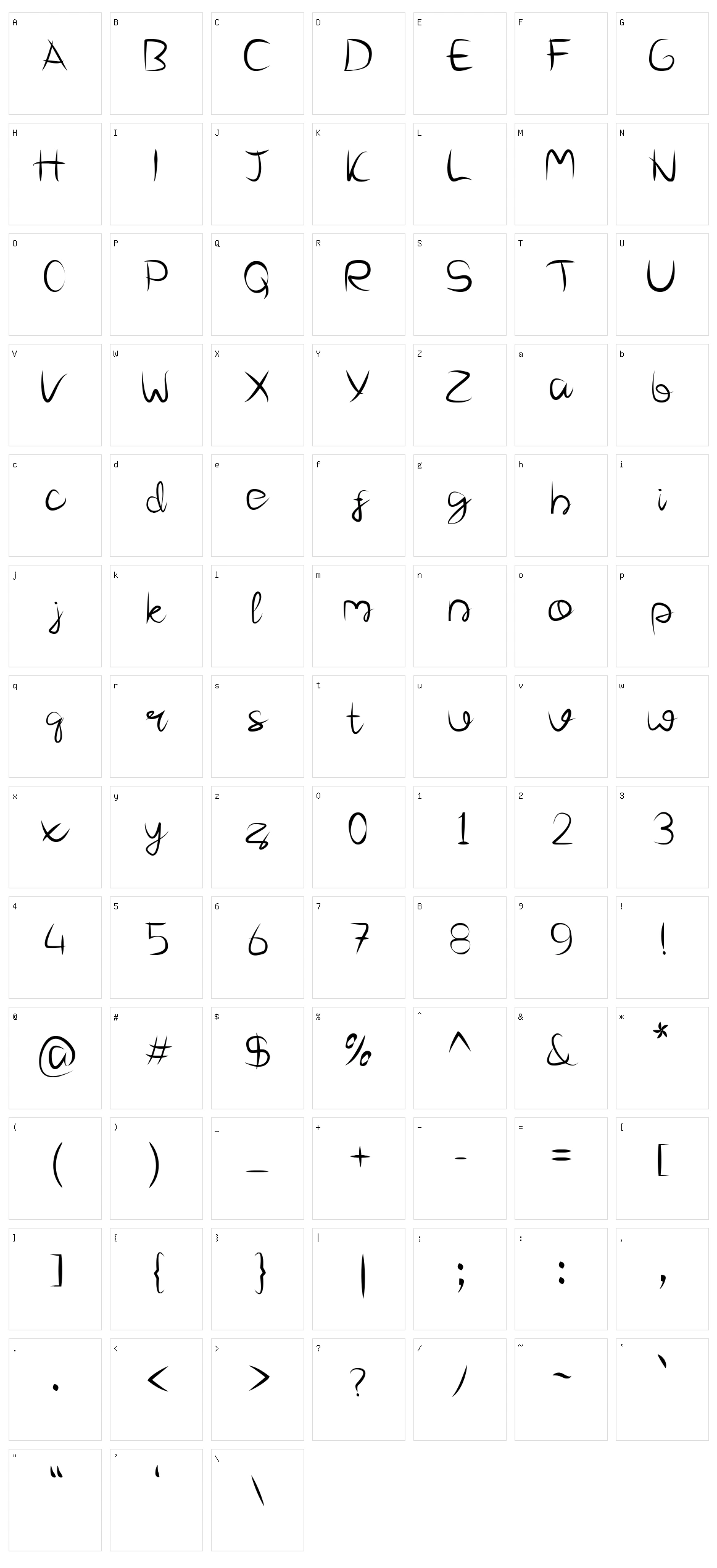
The free font Carina is carefully designed by Creatnow Studio, showcasing a thoughtful balance of creativity and usability and falls under the Script font style. When you download the ZIP file, it contains only 83.22 KB of font files, making it lightweight and quick to download. Please review the license details below to understand permitted usage and distribution rights. If license information is not available, we recommend using this font for personal projects only or contacting the author directly for commercial usage permissions.